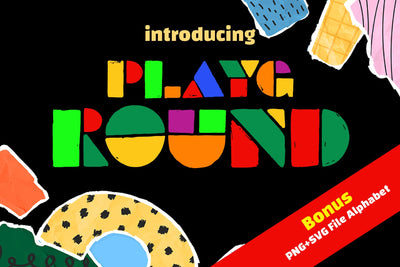
Playground Color Font
Playground is a fun, colorful font that is perfect for a baby, cute, comfortable style. and can be used easily. Add this beautiful display font to each of your creative ideas, and notice how it makes them stand out!